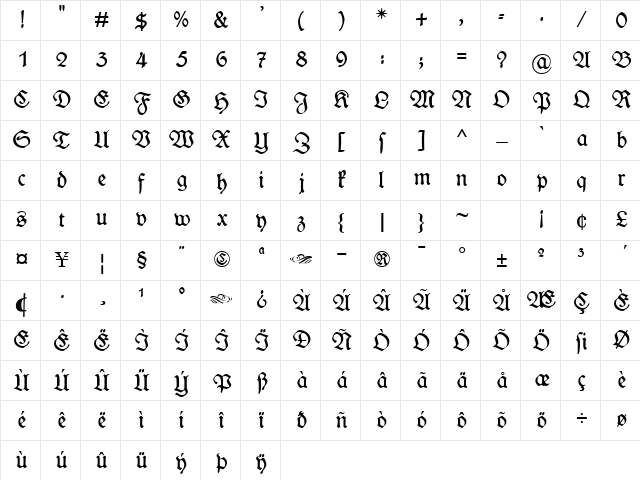
Complete WieynckFrakturUNZ1L Italic glyph index. Displaying only characters natively supported by WieynckFrakturUNZ1L Italic font.
WieynckFrakturUNZ1L draws on the rich tradition of blackletter calligraphy, with dense, angular strokes that evoke medieval manuscripts and old-world craftsmanship. The slanted form adds forward momentum and visual energy.